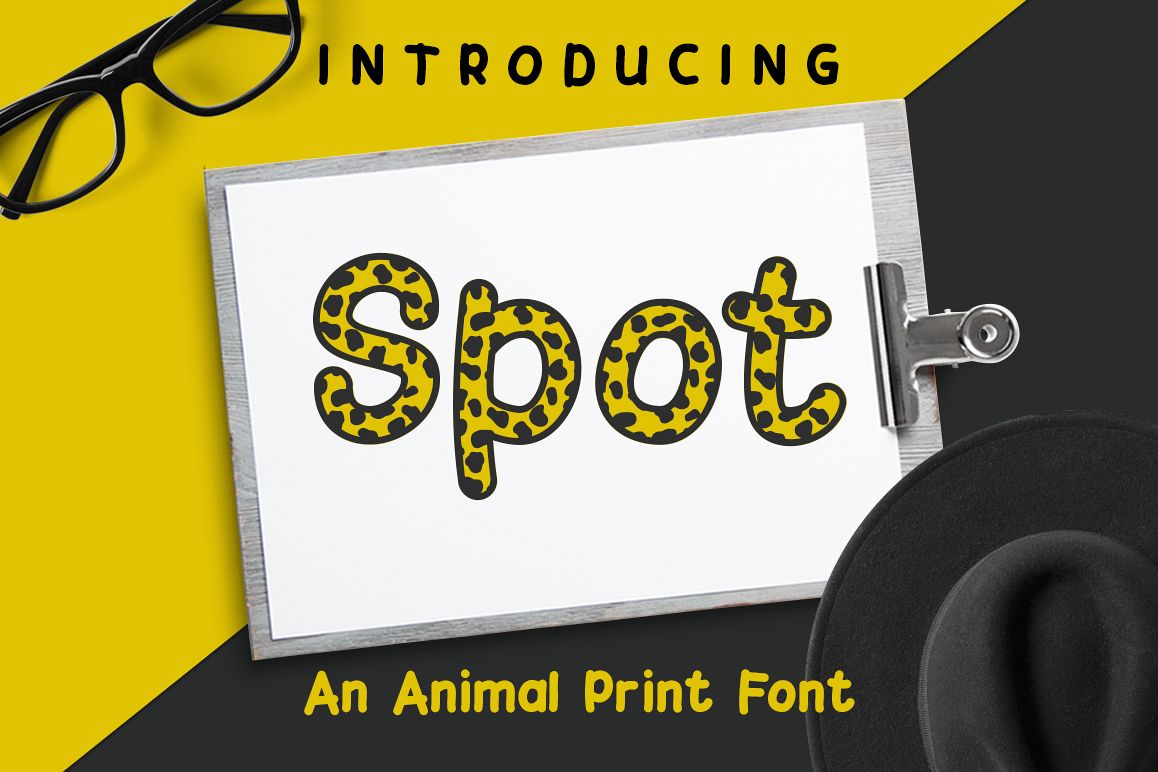
Spot is a animal print inspired font. Perfect for any projects relating to leopards or dalmatians.
The font comes in a animal print and a solid version